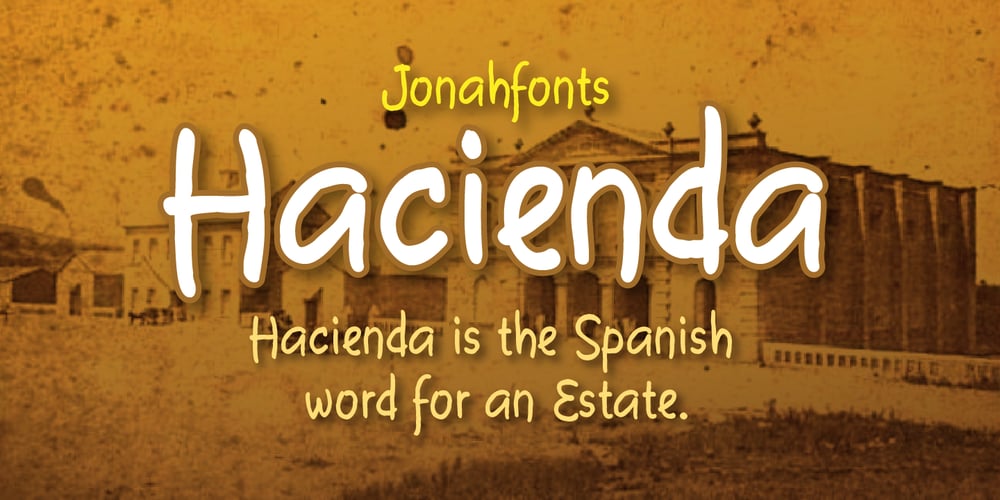
Hacienda Font Family was designed by John Nahmias and published by Jonahfonts. Hacienda contains 1 styles and family package options. A childlike freehand font amongst many others but with a more legible whimsical feel.